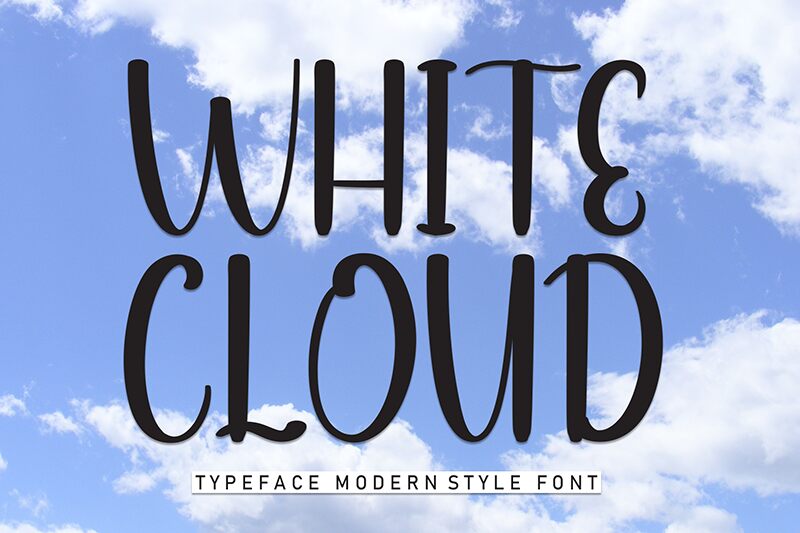
White Cloud
White Cloud font by Andi Moz is an artistic free brush font with a whimsical flair reminiscent of vintage-inspired handwriting and curved decorative elements. This theatrical typeface’s features like its crooked lines and reverse contrast make it an easy choice whenever actual handwriting is unavailable or inconvenient.
Use White Cloud in personalized stationery, entertaining marketing campaigns, colorful menu designs, party flyers, tattoo ideas, album covers, stylish t-shirts and hoodies for children and teenagers. Also try it in book covers for kids or older teen audiences.